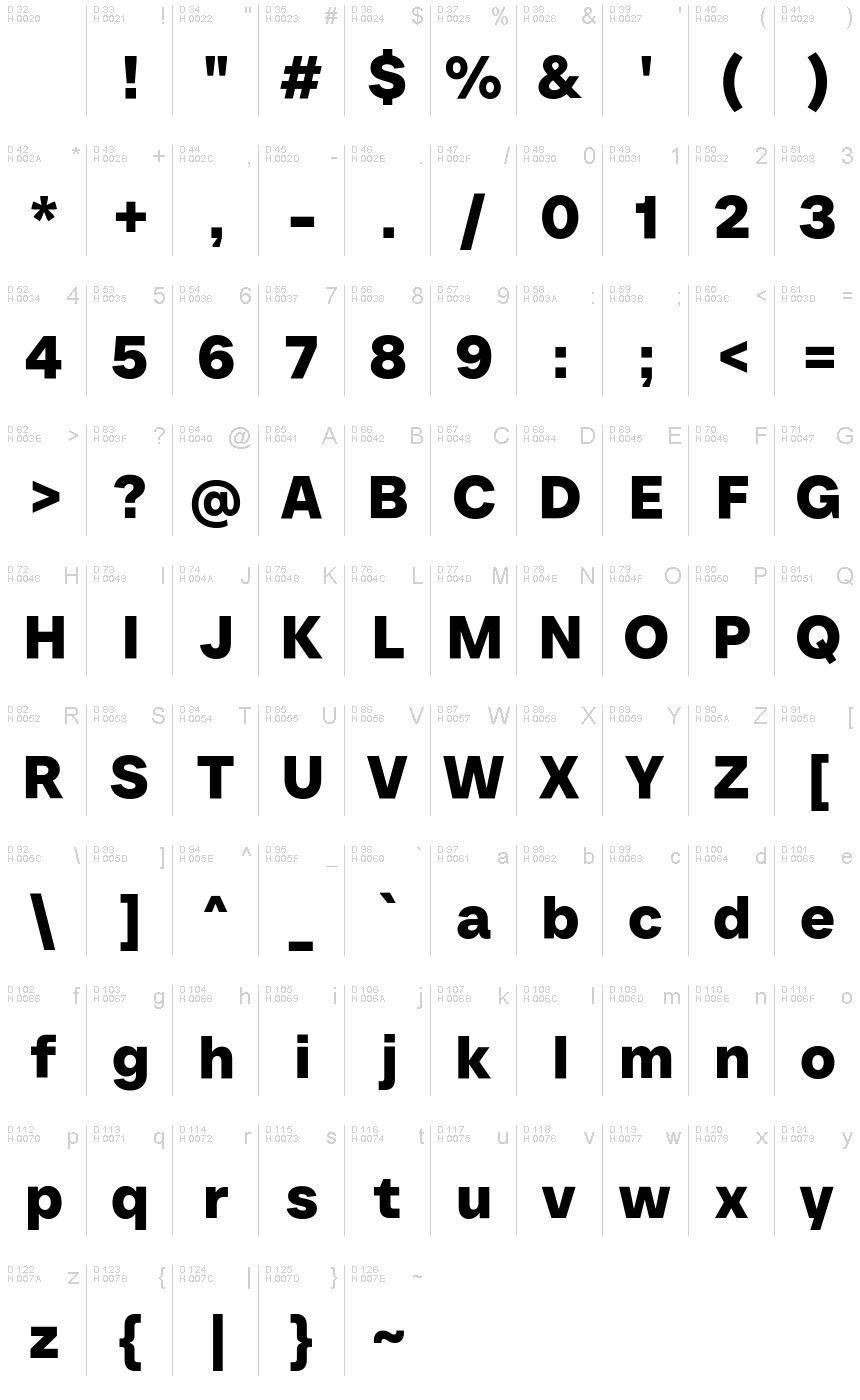
TT Neoris Trial Bold
TT Neoris Bold font, part of the TT Neoris family designed by TypeType Foundry, exudes a striking presence with its bold and impactful sans serif design. The font combines a modern aesthetic with an element of playfulness, evident in its rounded edges that soften the overall look while maintaining a confident stance. Its robust structure makes it especially appealing for high-visibility applications such as branding, headlines, and promotional materials.
TT Neoris Bold is ideal for creating memorable visual identities that demand attention without overwhelming the viewer. Whether used in digital interfaces or print media, this font's unique character ensures it stands out in various design contexts, making it a versatile choice for contemporary projects seeking both style and substance.